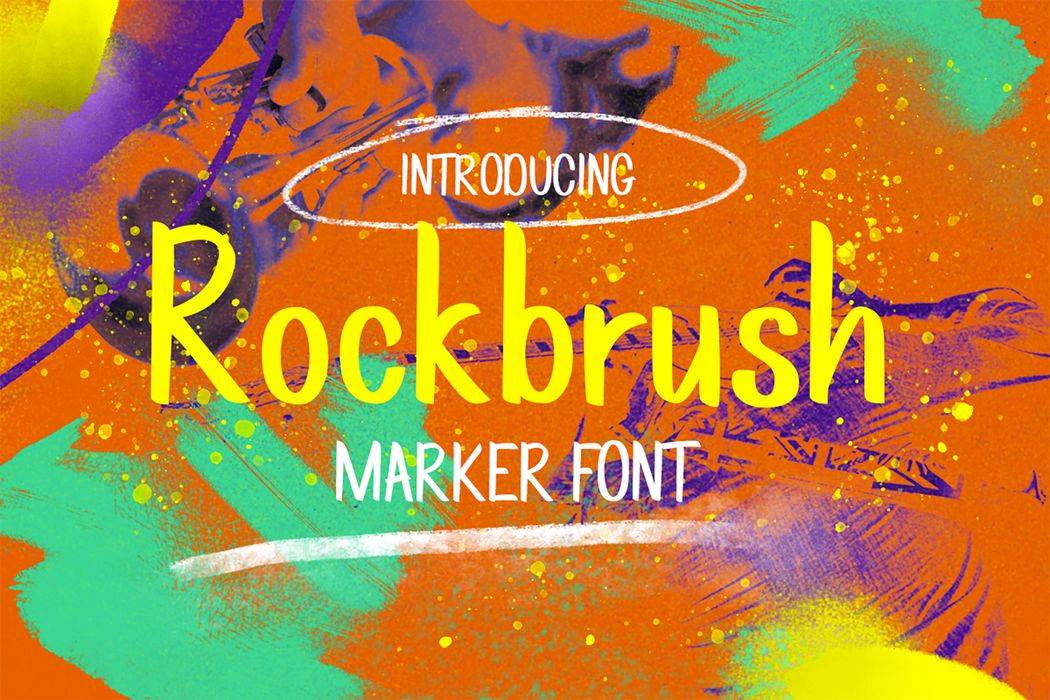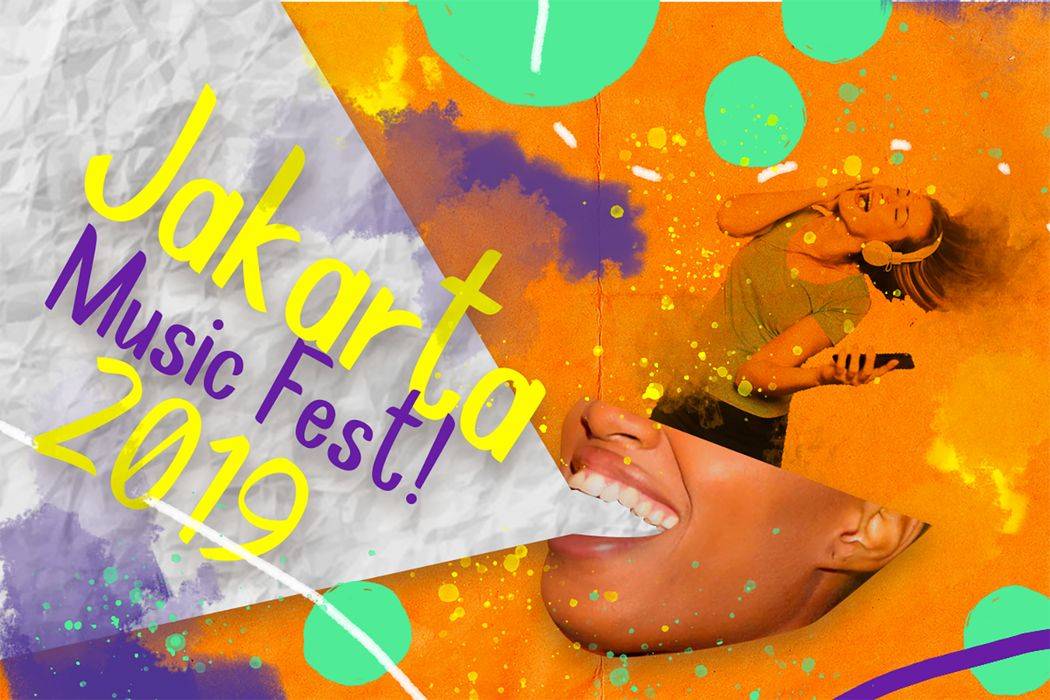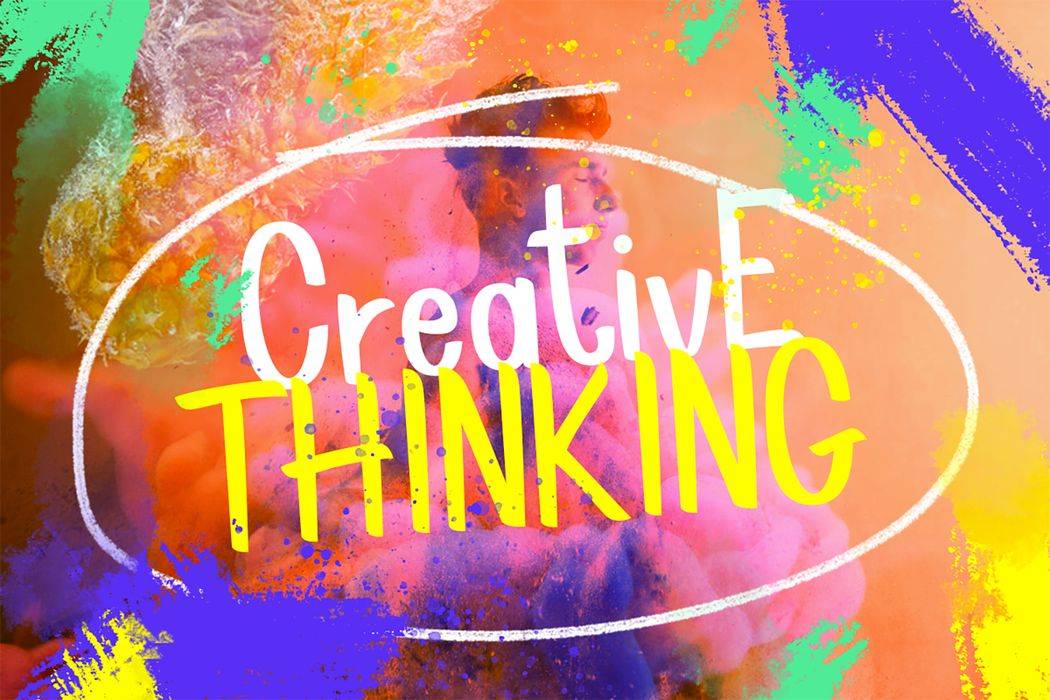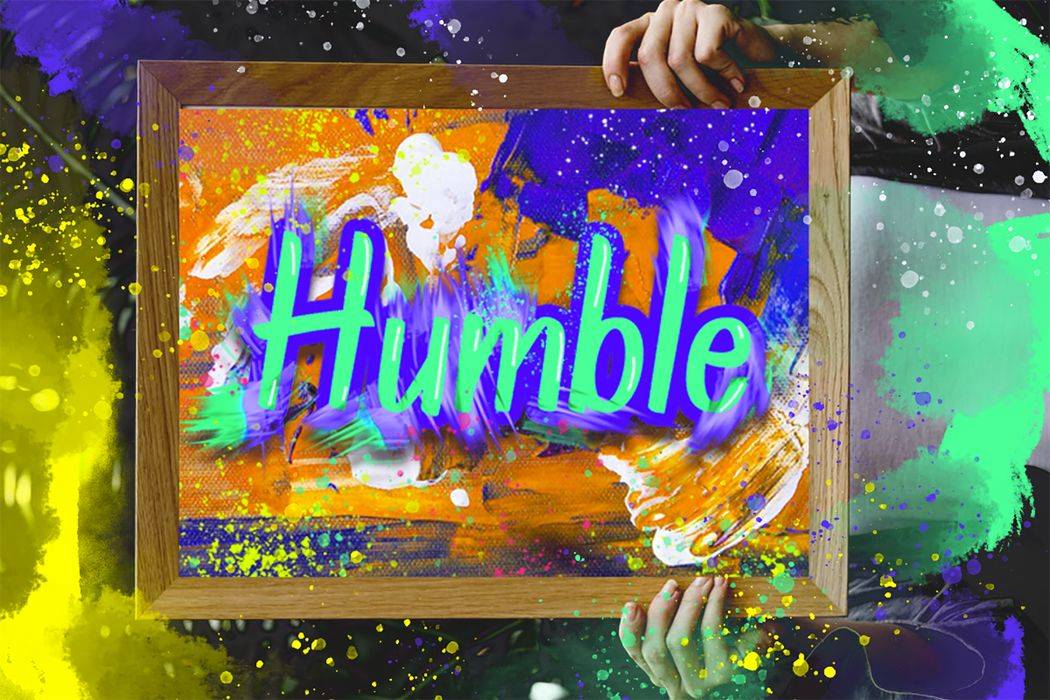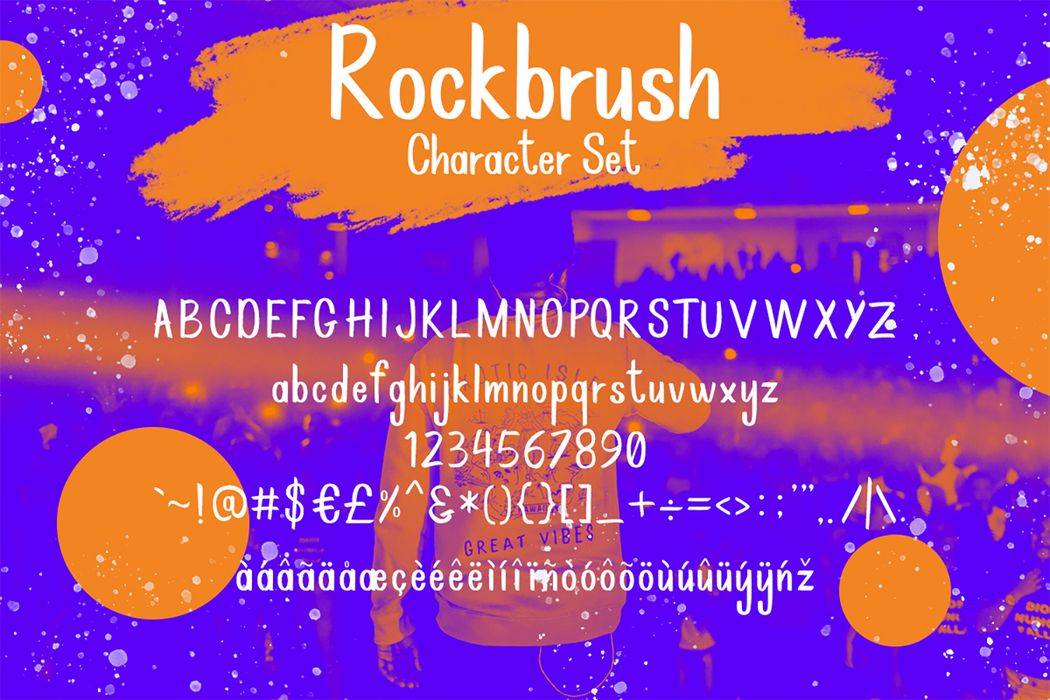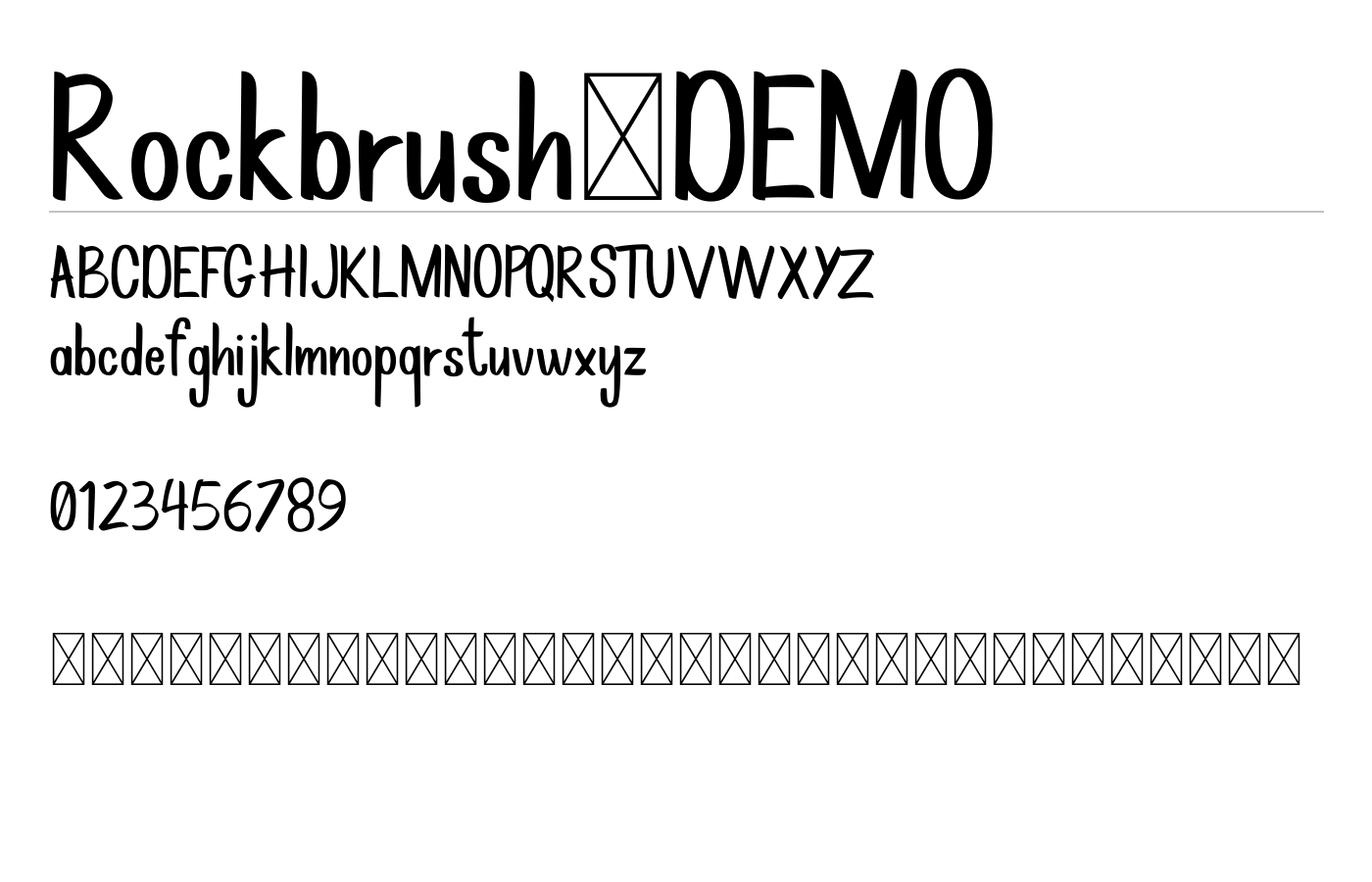
Rockbrush Marker is a casual, hand-drawn sans serif font with a playful and organic feel. Its tall, narrow letterforms and slightly uneven strokes mimic a marker pen’s natural texture, making it perfect for creative, informal designs like posters, logos, and children’s materials. This font brings a friendly, approachable charm that works well when you want to add personality and warmth to your projects.
Rockbrush Marker Font
About Rockbrush Marker Font
| Font family | Rockbrush Marker Font |
| Designer | Atasi Type |